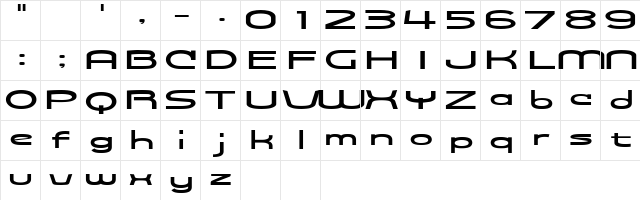
Cosmos Regular
Design Context for Cosmos Typeface
Cosmos takes a measured approach to typography — its balanced proportions and neutral character make it a reliable workhorse for both digital and print work.